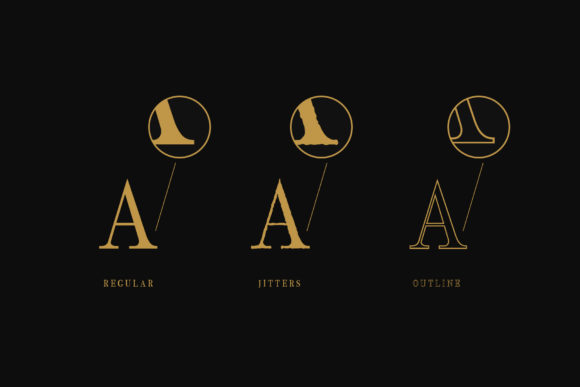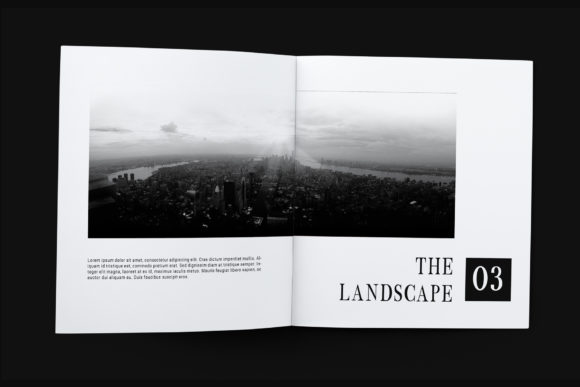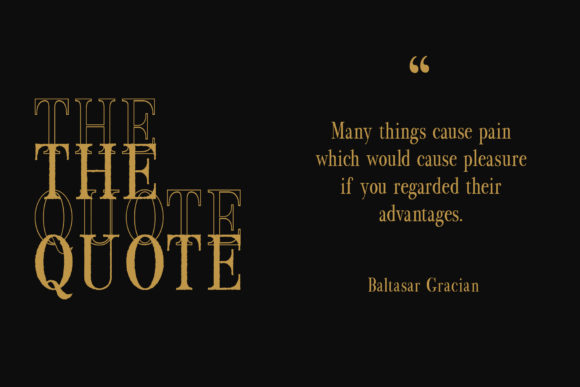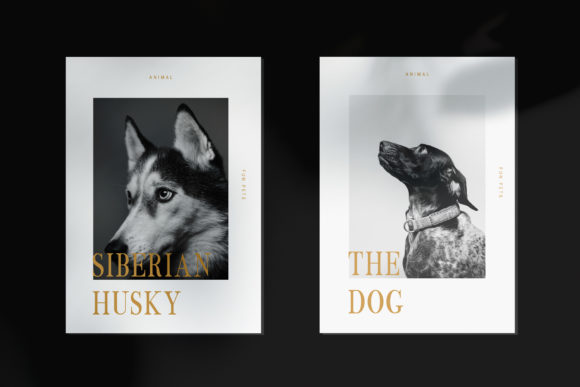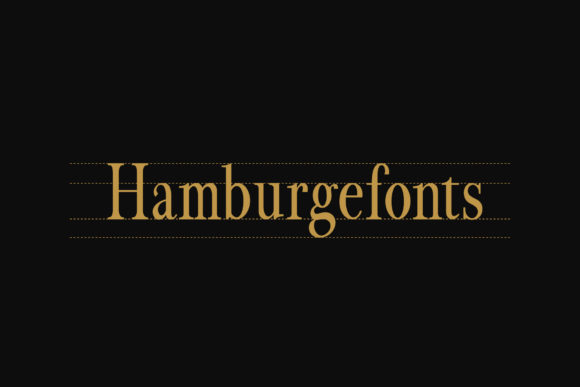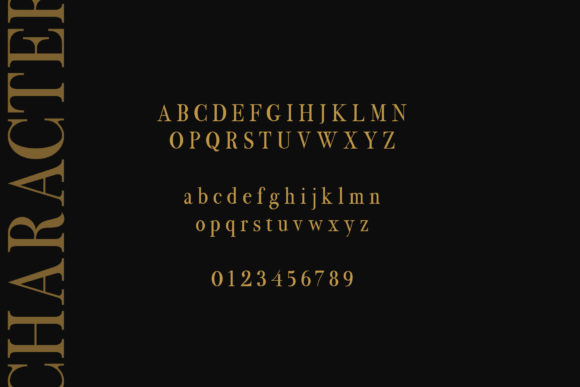
Introduction to Furano Font
Furano is a strikingly bold and sophisticated display font with a light and contemporary feel.
It will effortlessly turn any design work into a stunner .
Key Features of Furano Font